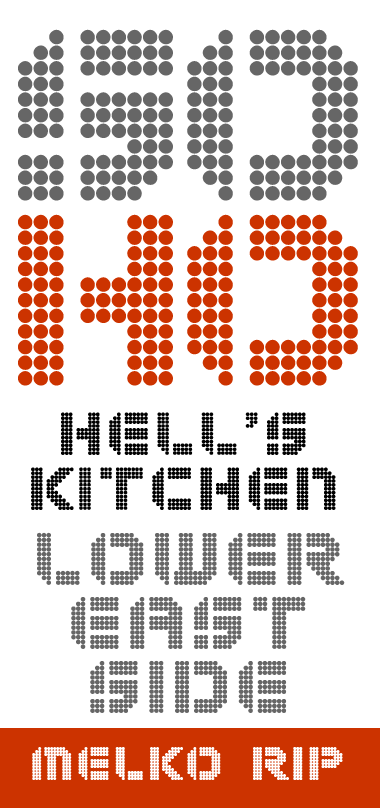
Melko rip
Michel Troy ~UrbanPixel~ (Upixel)
Base on Melko, a stencil version
I love the 'grey' effect at pixel size. 10/10
I like the font, but those little tiny white star/diamond dots inside are preventing it from being 'stencil'.
I thought the same thing. Either decrease the filter, so that every star is connected; or increase the filter, so that they disappear ;)
Nice font though!
Thank you minimum and Cmunk... I totaly miss that perspective, you are absolutely right.
I just reduce the size of the dot so they don't touch one to each other... Still! at smaller size on screen you have the feeling they're still touching.